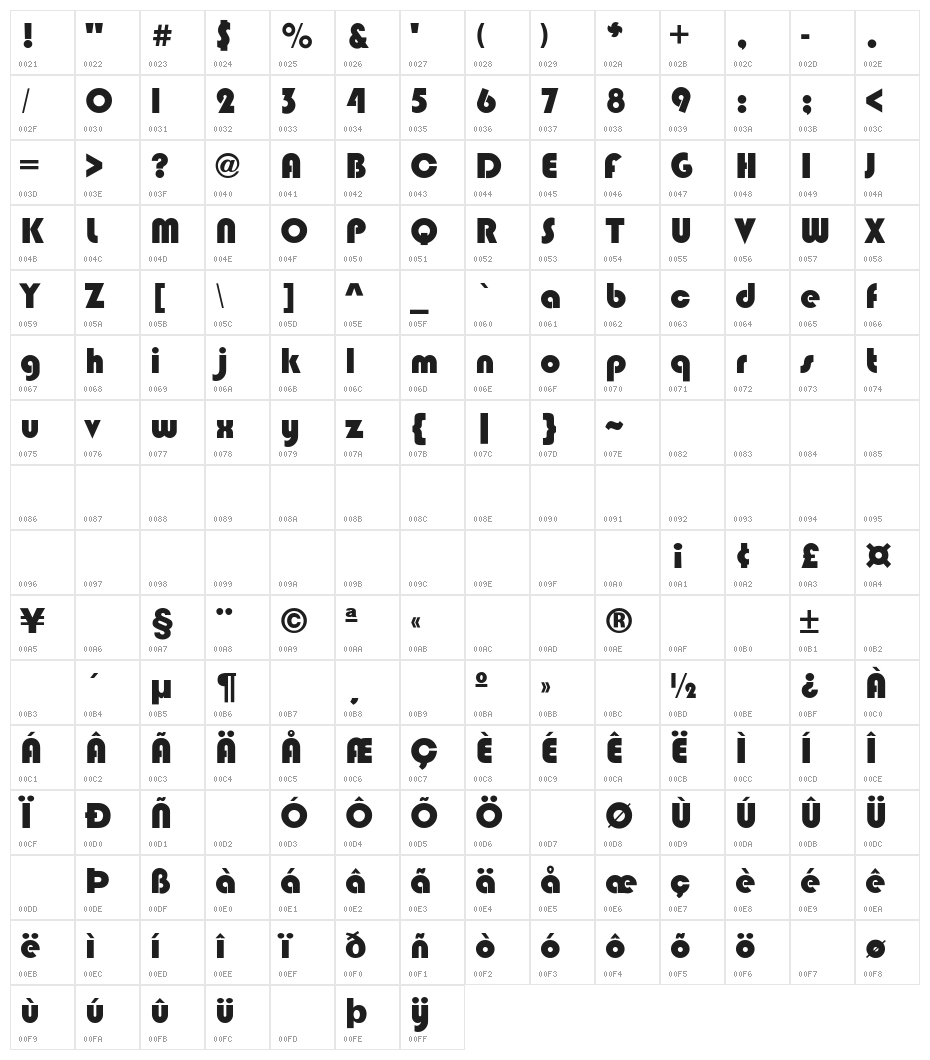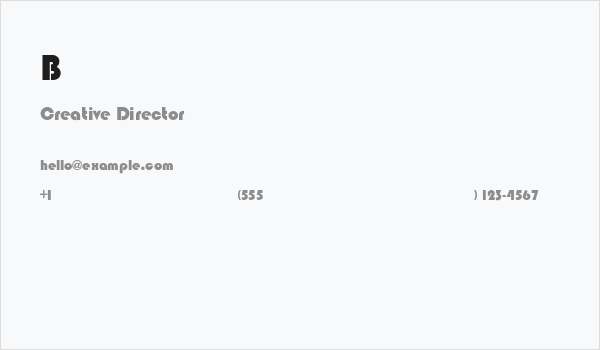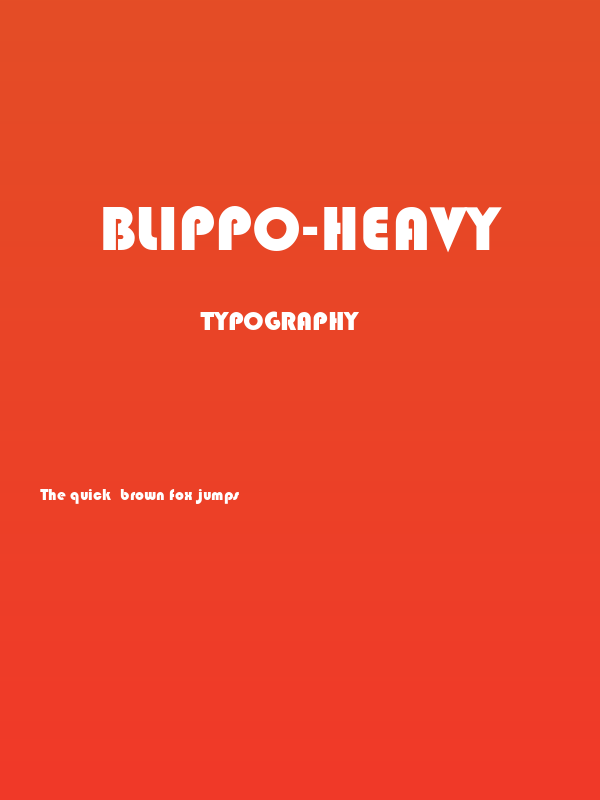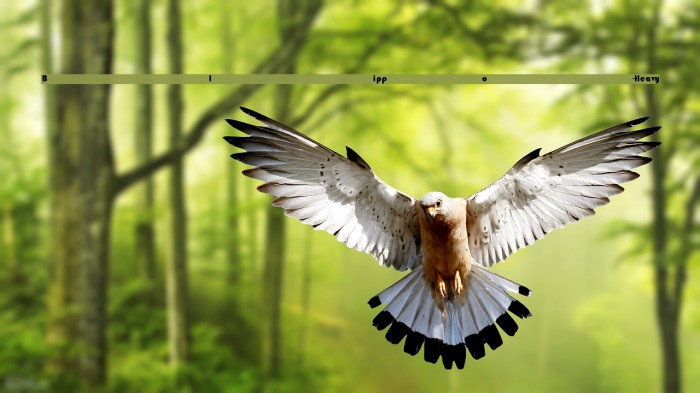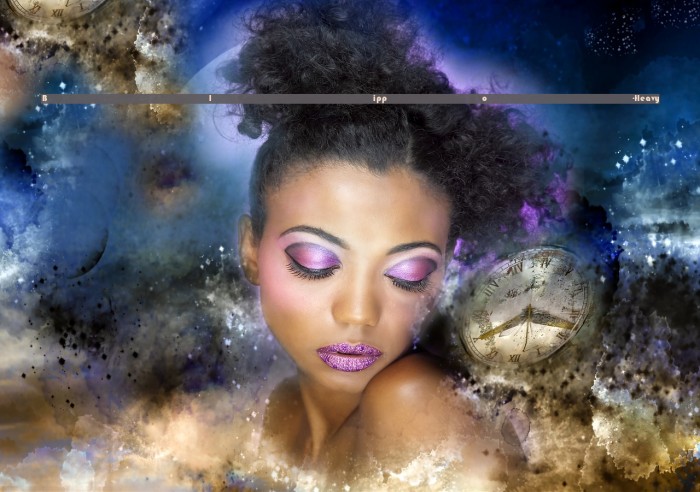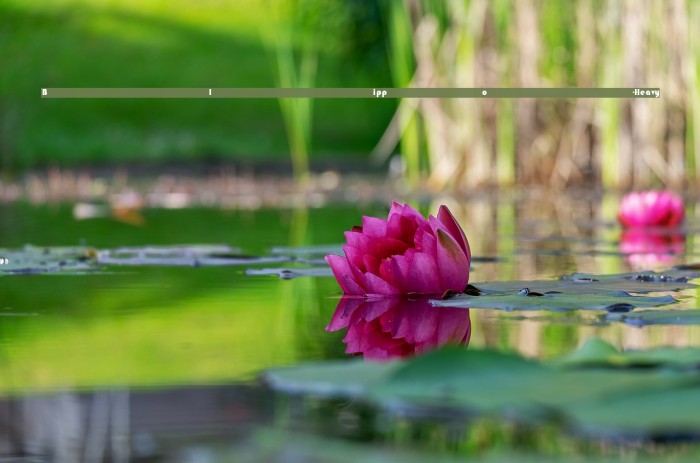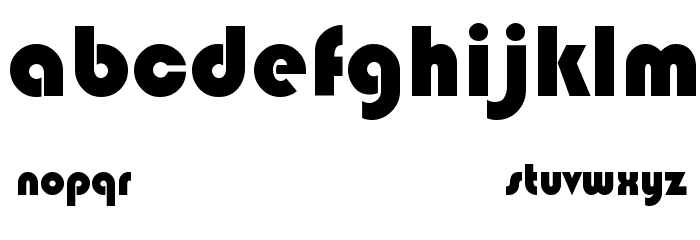
Blippo-Heavy Font
Blippo-Heavy Description
This font features a bold, geometric style with thick, uniform strokes that create a strong visual impact. The characters are rounded and have a playful, retro feel, reminiscent of 1970s design aesthetics. The uppercase letters are particularly striking, with a consistent height and width that contribute to a cohesive look. The lowercase letters maintain the same boldness, with some characters having unique, quirky shapes that add to the font's charm. Numbers and special characters are equally bold and rounded, ensuring they stand out in any design.
| Overall Style | Vintage |
| Proposed Projects | Ideal for retro-themed posters, playful branding, and eye-catching headlines. |